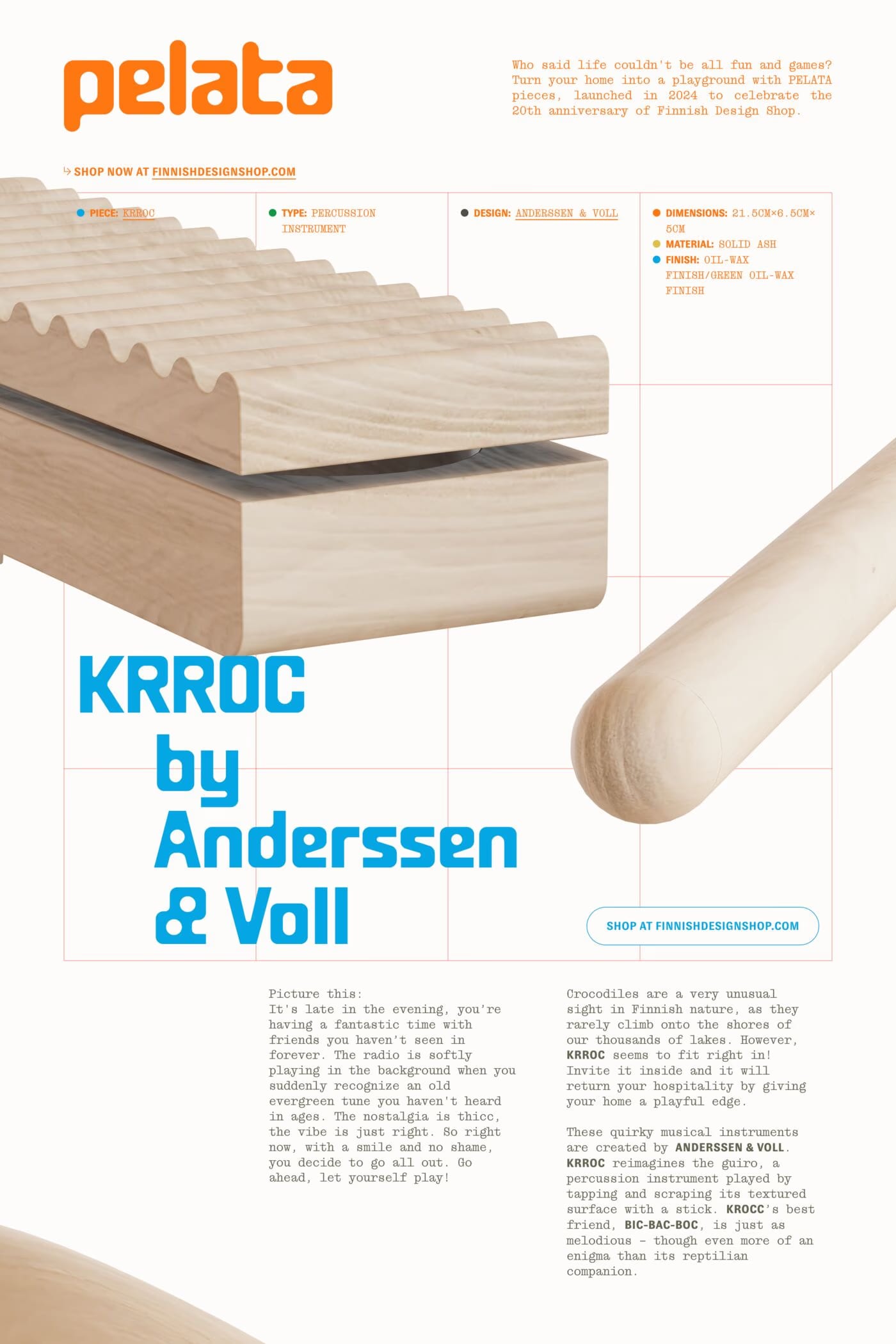
Daily is a sans-serif typeface from Dinamo.
ABC Daily is a typeface family made of two siblings: Slab and Scotch.
A1 features 1 website using Daily. It leans towards 3D, Animated, and Display font design styles.